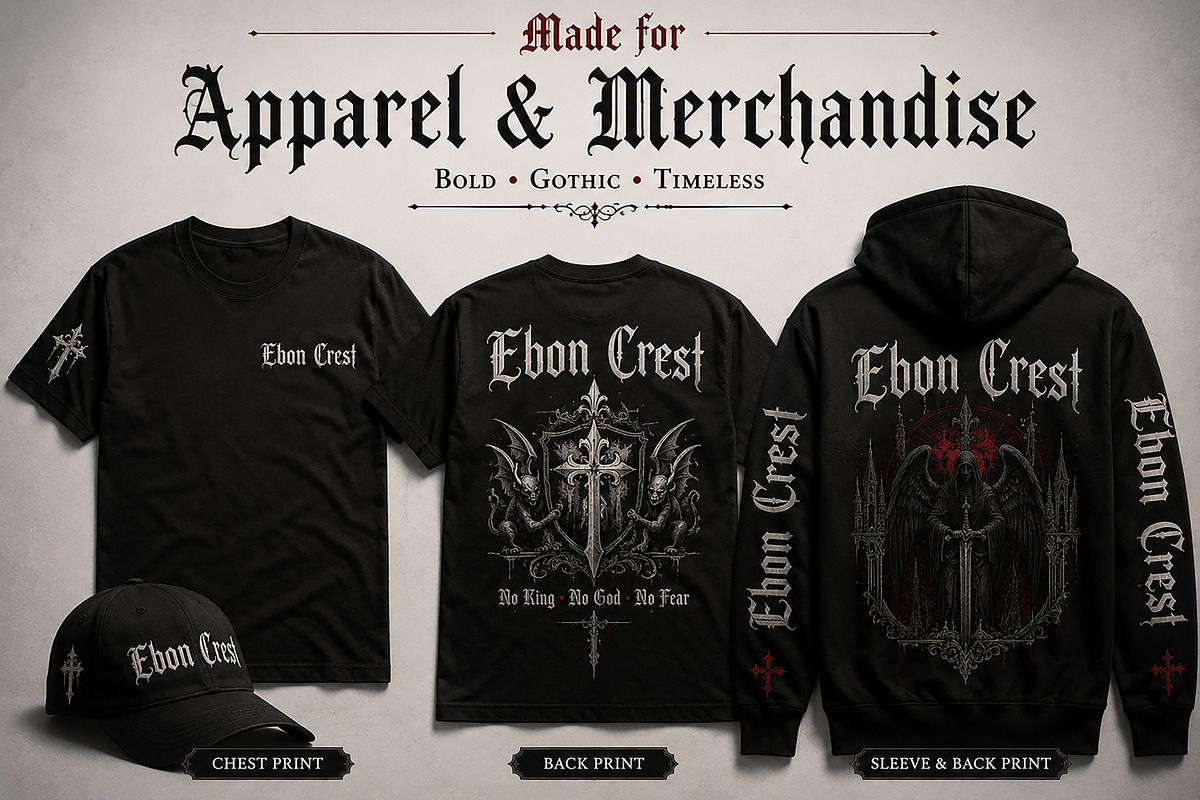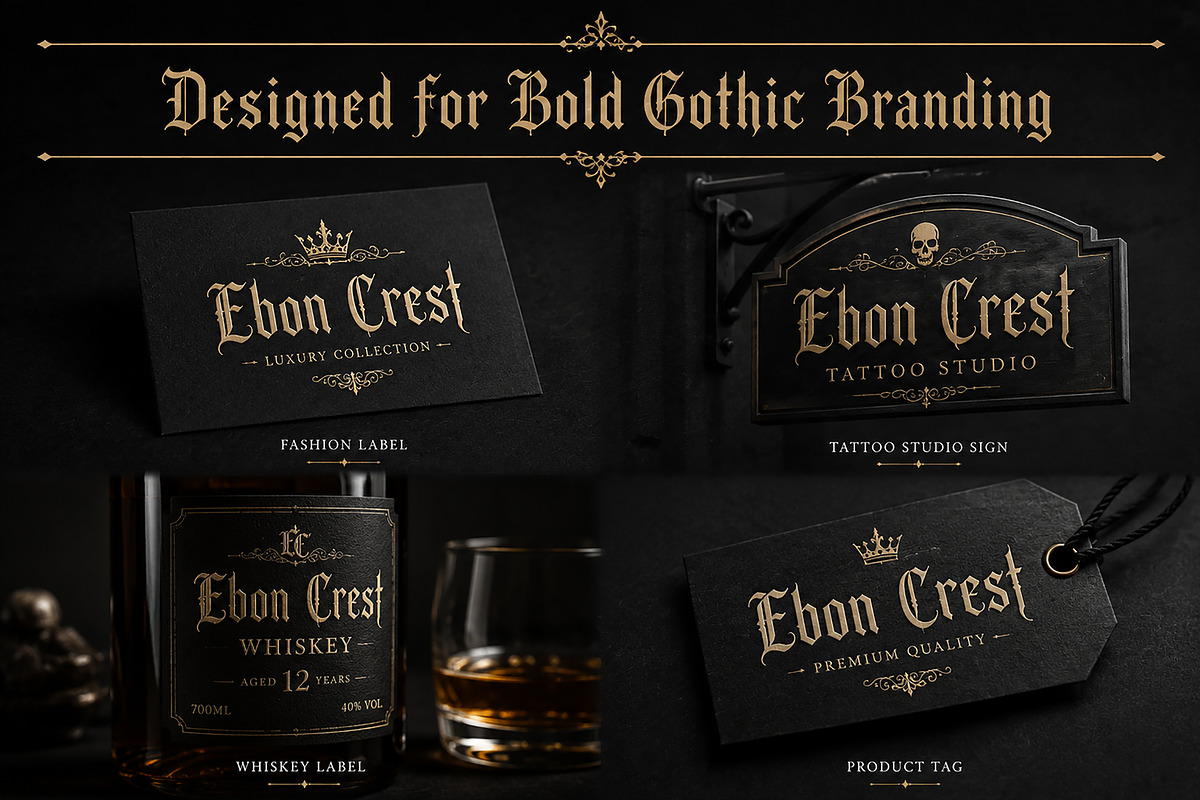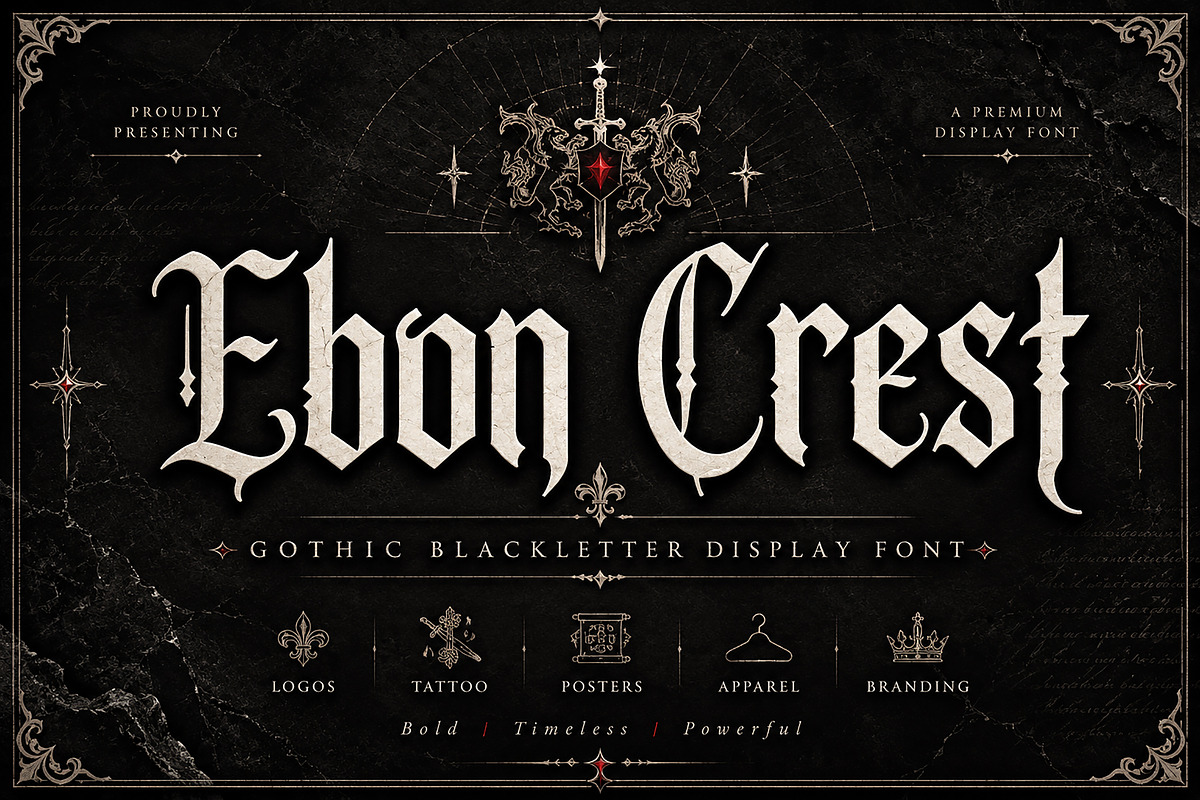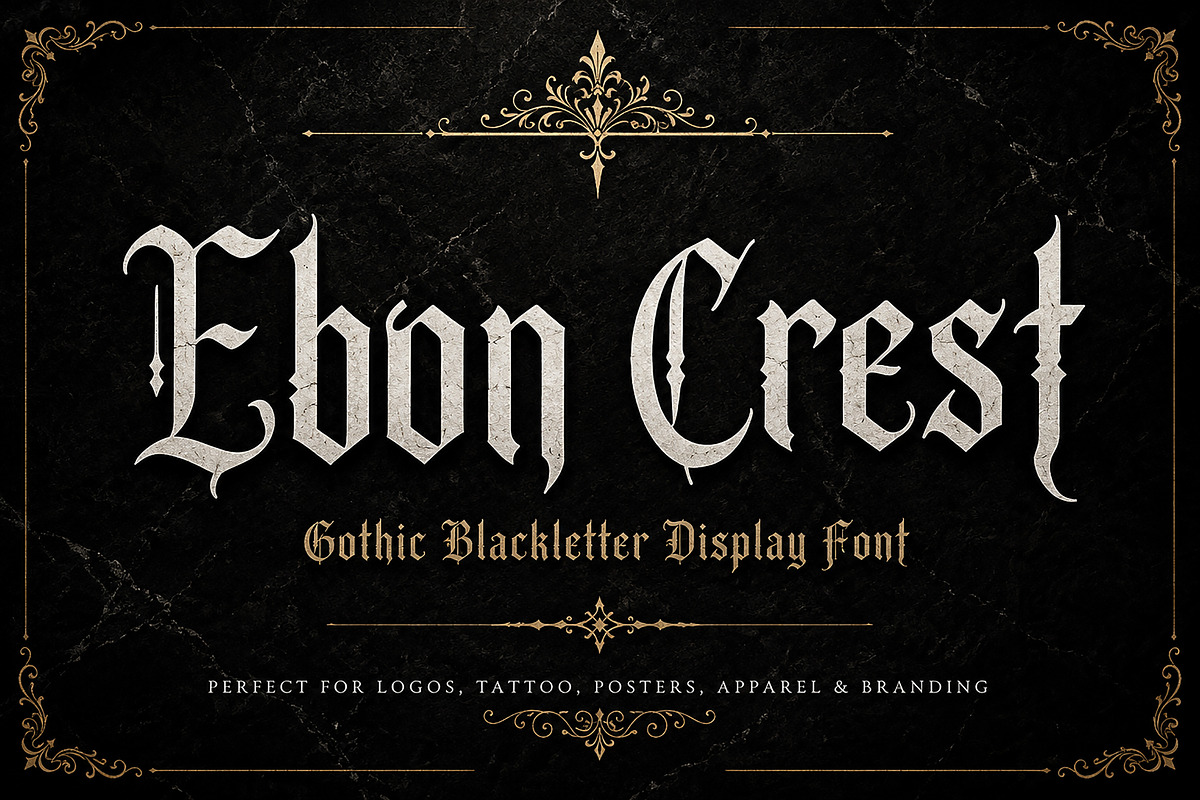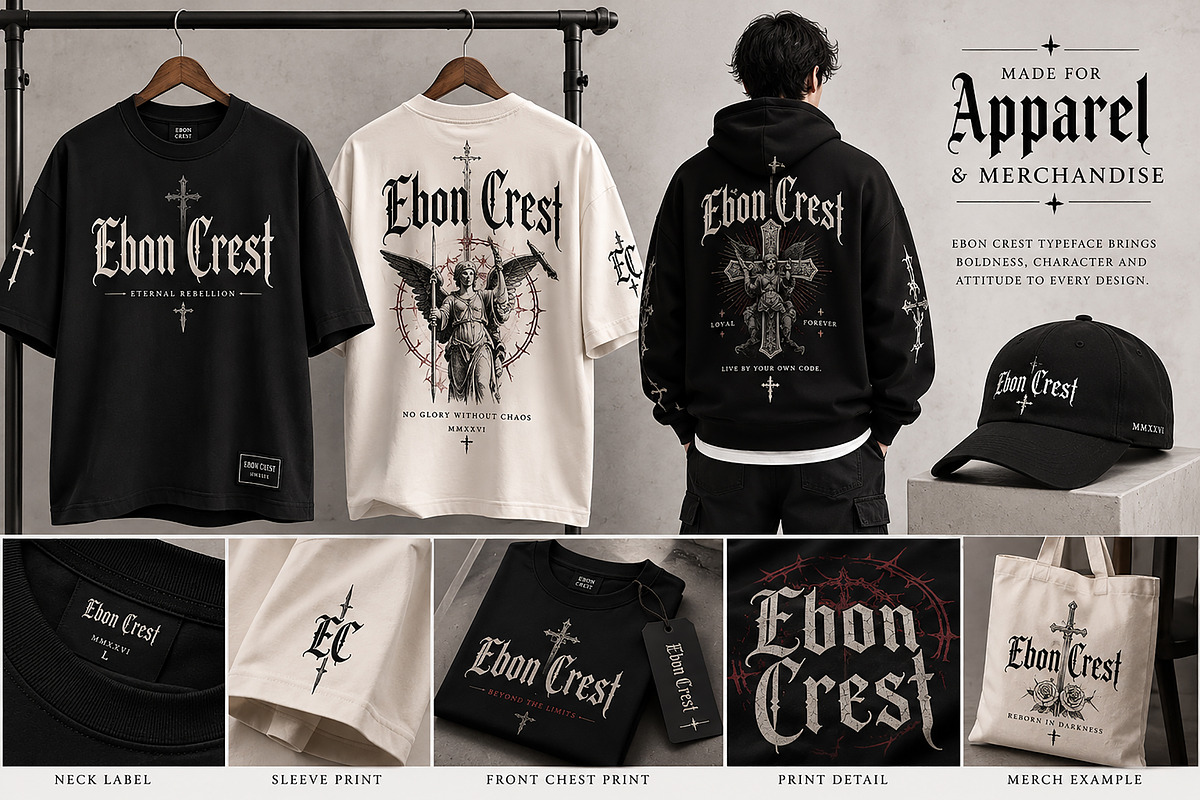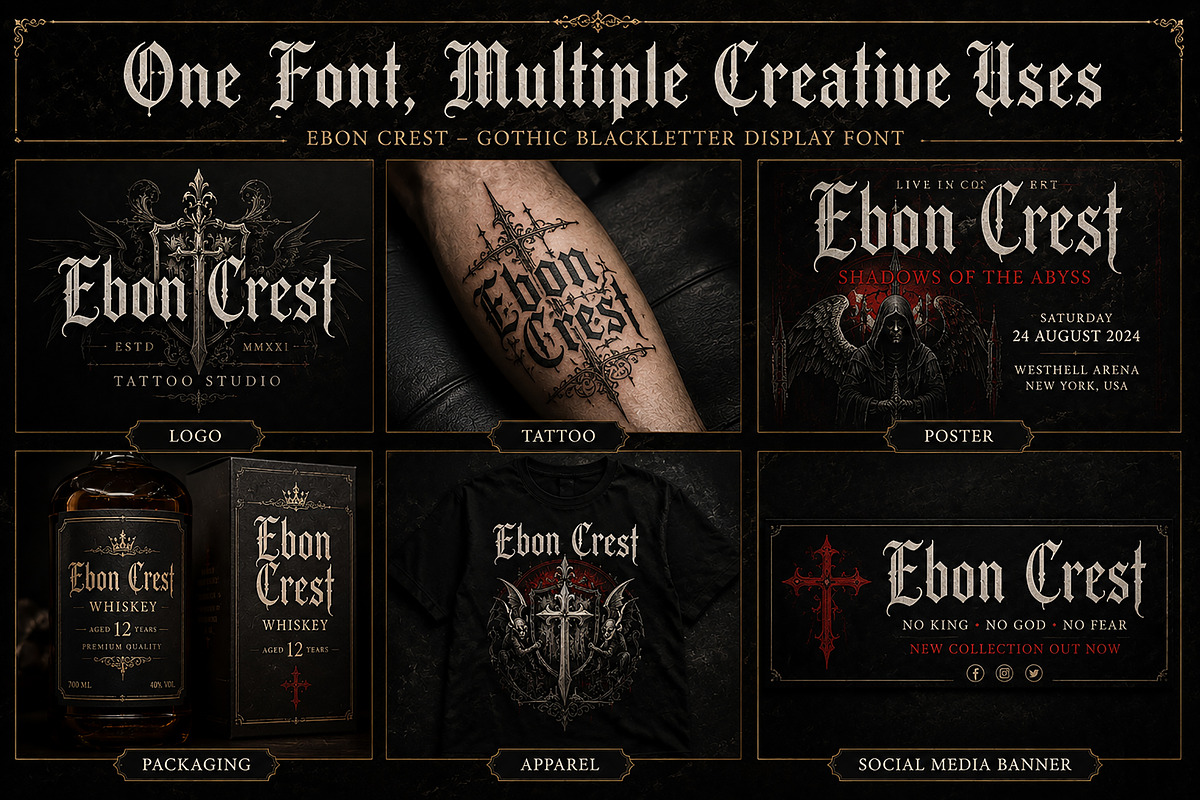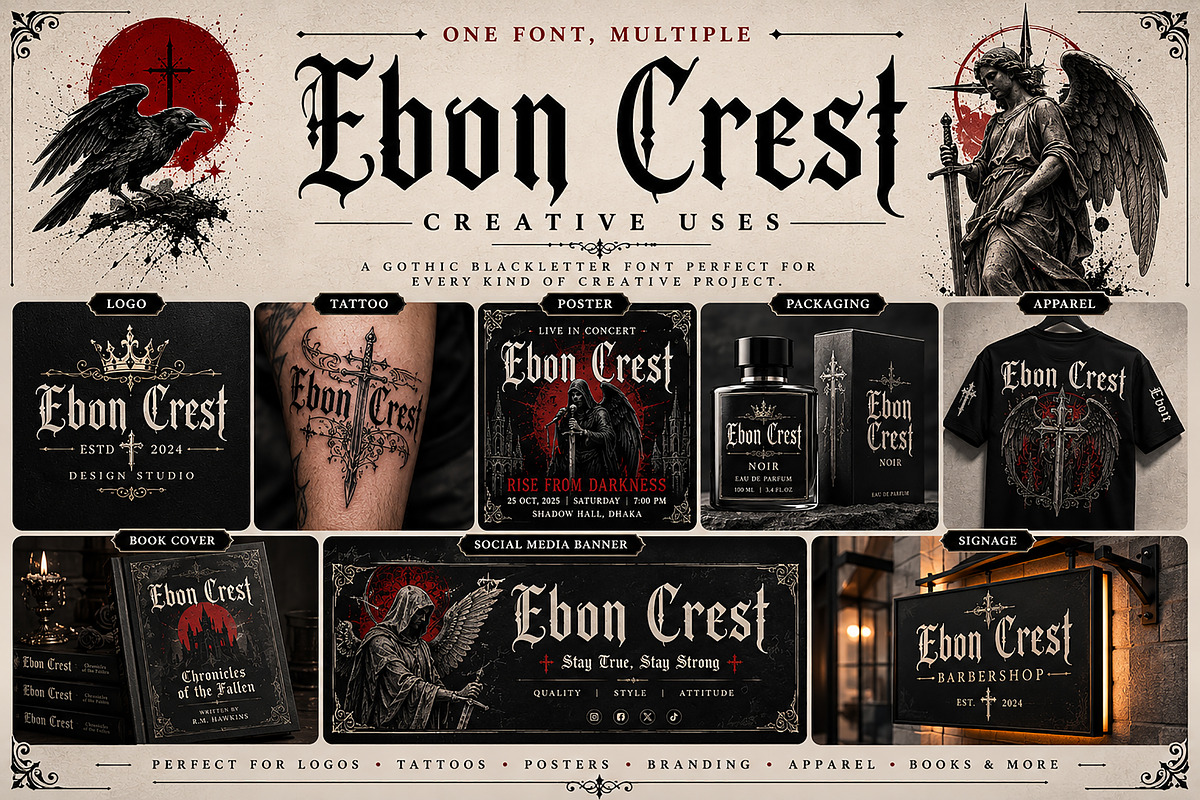
Ebon Crest
Ebon Crest is a bold Gothic Blackletter display font crafted for creators who want to make a powerful visual statement. Inspired by medieval manuscripts, gothic architecture, and classic blackletter typography, this typeface combines timeless elegance with sharp, dramatic letterforms that command attention.
Whether you're designing luxury branding, tattoo artwork, album covers, fantasy book titles, premium packaging, posters, or apparel, Ebon Crest delivers an authentic medieval aesthetic while maintaining excellent readability for modern design projects.
Every character has been carefully designed with distinctive blackletter details, making this font ideal for both historical and contemporary creative work. Its commanding presence makes it perfect for logos, headlines, branding, merchandise, and editorial designs that require a bold, premium look.
Gothic & Medieval Branding
Blackletter Logos
Luxury Packaging
Tattoo Designs
Album Covers
Fantasy Book Covers
Posters & Headlines
Apparel & Streetwear
Merchandise Design
Whiskey & Craft Beer Labels
Gaming & Esports Branding
Invitations & Certificates
Editorial Titles
YouTube Thumbnails
Premium Print Designs
Uppercase & Lowercase Letters
Stylistic Blackletter Design
High-Quality Vector Letterforms
Bring the spirit of medieval craftsmanship into your next creative project with Ebon Crest—a timeless Gothic display font designed to leave a lasting impression.